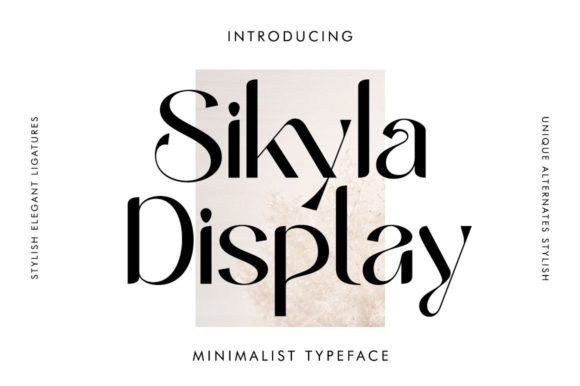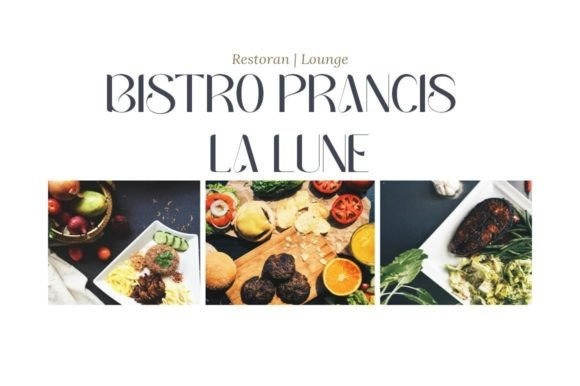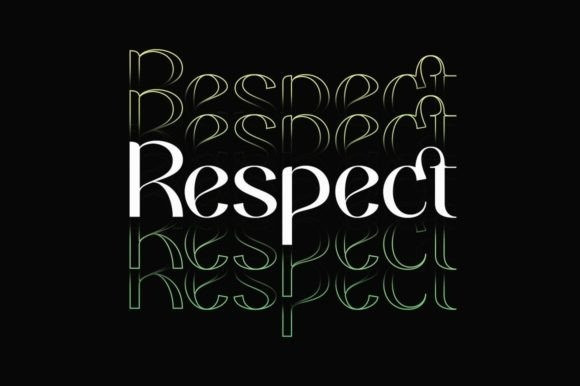
Sikyla Display Font
Sikyla Display is a very beautiful and unique Sans Serif font. Sikyla Display font offers a variety of alternatives and very interesting ligatures used to design various displays.